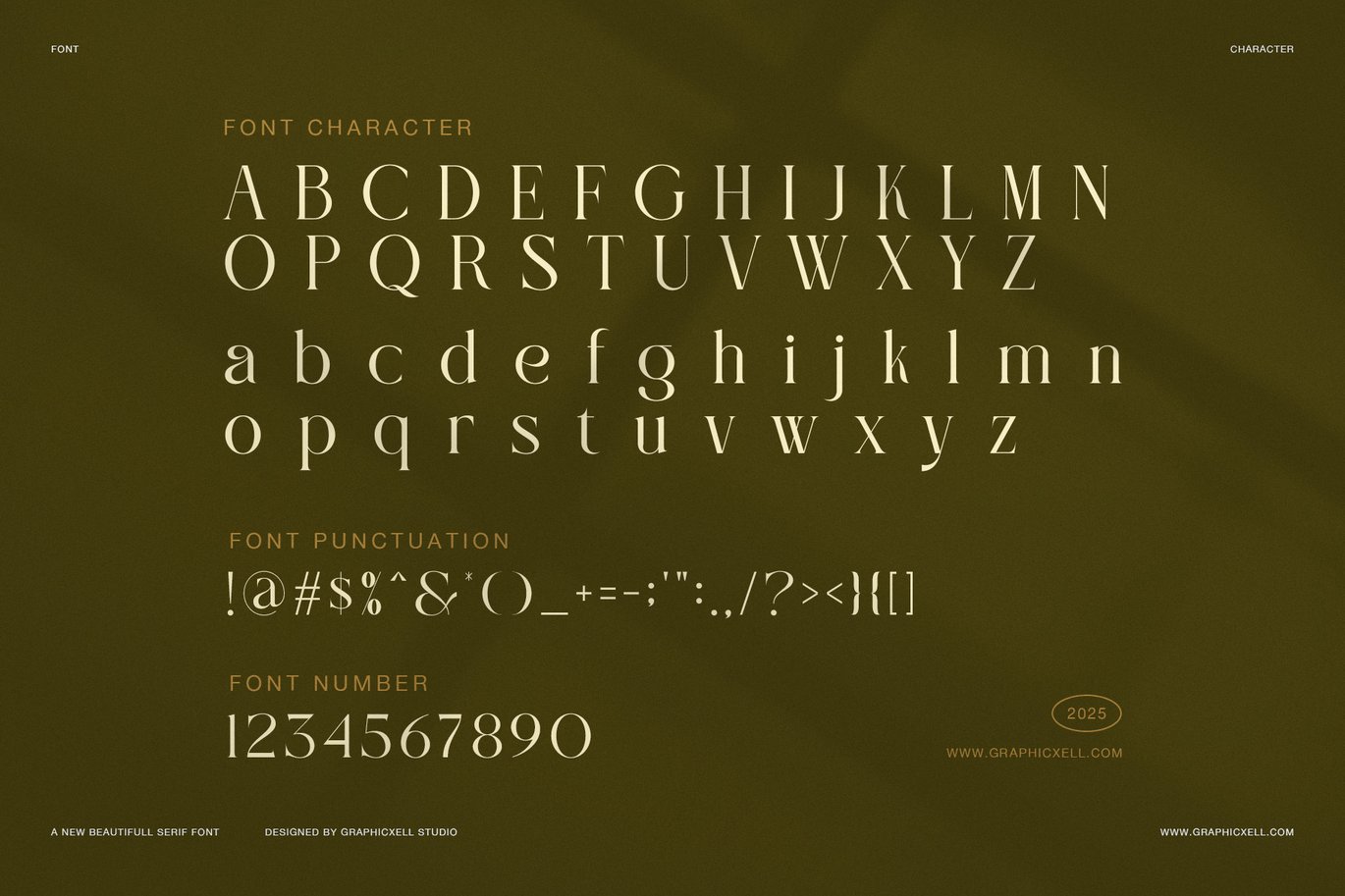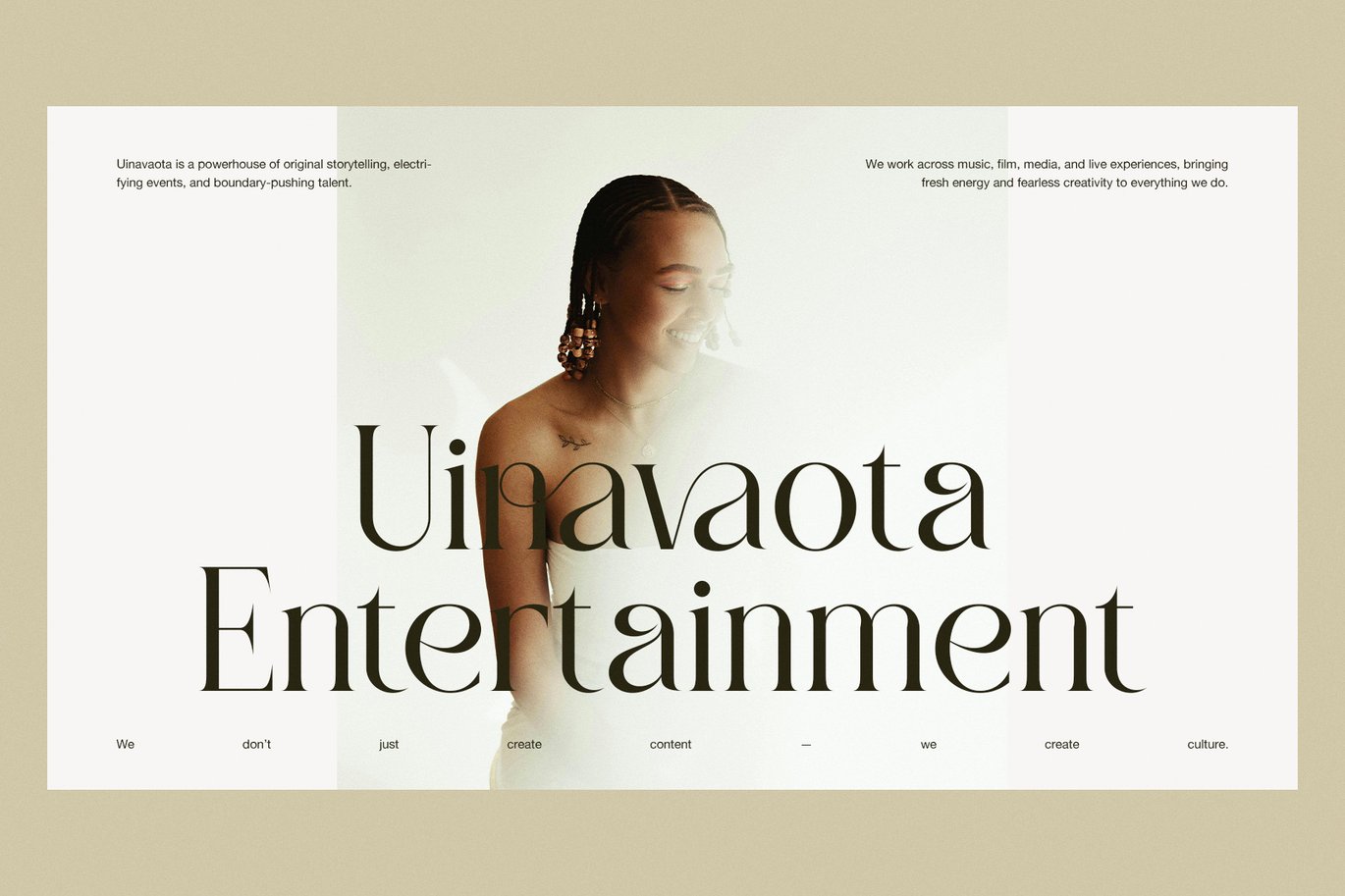
Robelia Elegant Serif Font
Robelia Elegant Serif Font is a versatile typeface ideal for various projects, including logos, branding, posters, blog headers, advertisements. The free version includes a full set of uppercase and lowercase letters, available in OTF format.